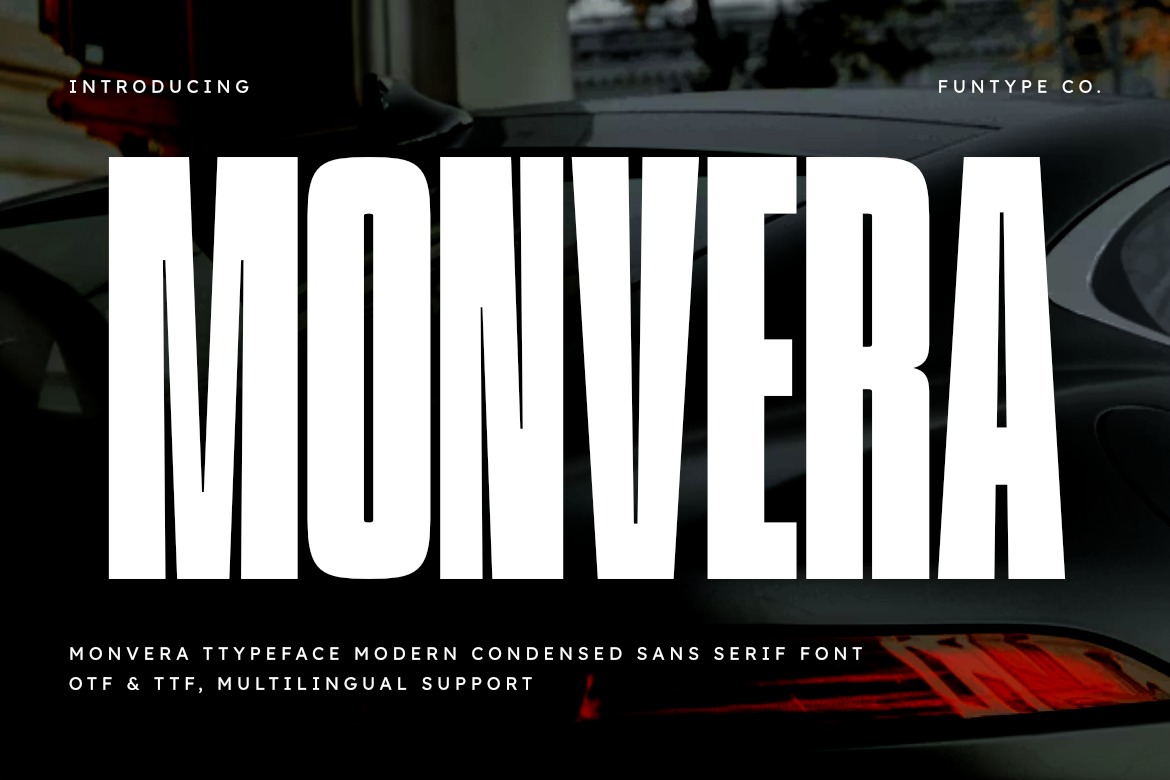
Monvera – Bold Condensed Font
Monvera – Bold Condensed Font is a flexible and reliable font created to fit multiple design needs, from branding and packaging to social media and editorial layouts. Monvera is a powerful and commanding condensed sans serif typeface designed for maximum visual impact. Featuring tall, clean-cut letterforms and a robust geometric structure, Monvera is the perfect choice for designers who need their headlines to speak with authority and modern sophistication.
Whether you are working on high-octane sports branding, sleek automotive advertisements, or minimalist editorial layouts, Monvera provides a professional edge that stands out in a crowded marketplace. Its narrow profile allows for tight tracking, making it exceptionally efficient for bold display use and impactful signage.